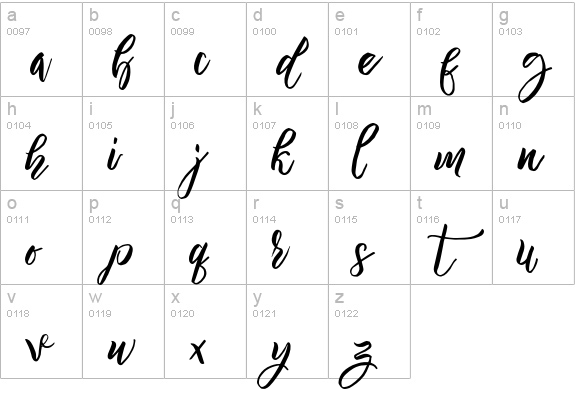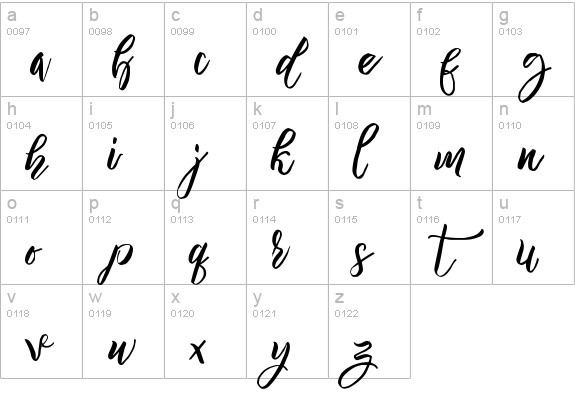
Nirmana font is a stunning display typeface that exudes elegance and sophistication. With its unique combination of sleek lines and stylish curves, Nirmana font is perfect for adding a touch of class to any design project. Whether you're creating a logo, branding materials, or a special event invitation, this font will elevate your work to the next level. The best part? Nirmana font is completely free to download at FontsMarket.com. That's right, you can easily access this beautiful font at no cost and start using it in your projects right away. Don't miss out on the opportunity to enhance your designs with the exquisite Nirmana font – download it now and elevate your creativity to new heights.